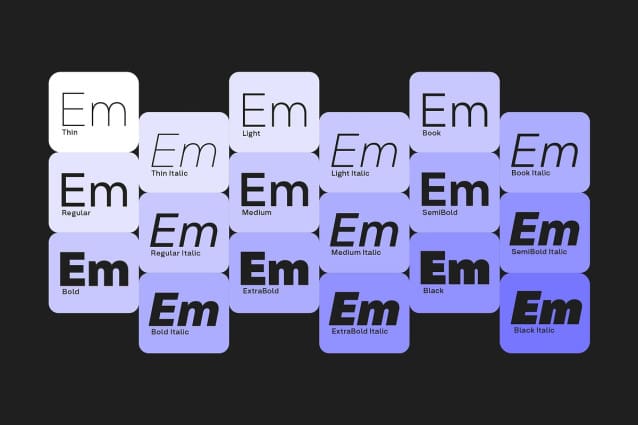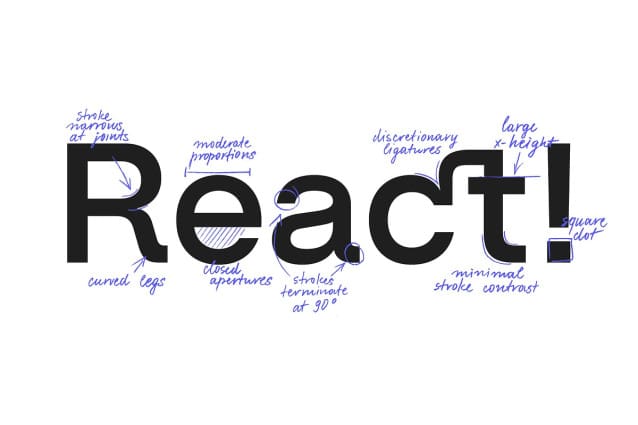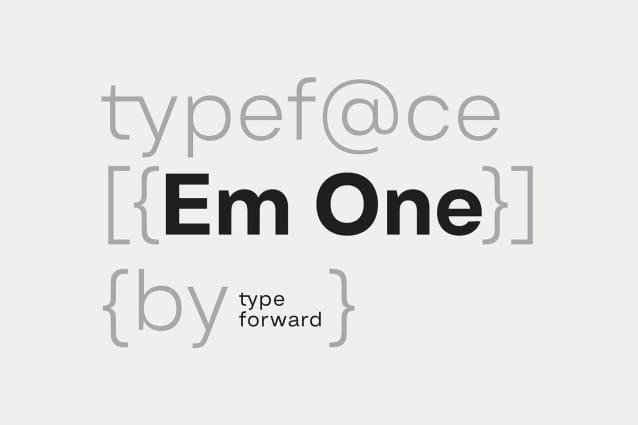
Em One Font
Em One Font is a compact, clean sans-serif typeface that balances simple aesthetics with a high x-height, minimal contrast, and moderate proportions. Designed as a cornerstone for any project, Em One serves both as functional body text and striking headlines with a subtle and timeless character.
Design Approach: Em One is the first typeface developed with our colleague Luboslav Boyanov, a National Academy of Art Sofia graduate. Our goal was to create a functional typeface with a broad range of applications—from web and print to branding, editorial, and various design contexts—embodying a classic Swiss typeface’s distinctive character and aesthetics while maintaining a straightforward design.
Distinct Features:
Key features include a tall x-height, minimal contrast between strokes, and moderate proportions for better readability. Refined letter spacing enhances the overall look, and distinctive elements in some letters add character without excessive visual noise, making EmOne versatile and balanced between functionality and graphic identity.
Font Family Composition:
Em One comes in 9 weights, from Thin to Black, each with a corresponding italic version. A variable font format offers greater flexibility for dynamic solutions.
Technical Specifications:
Designed for a large audience, Em One supports over 220 languages, including Extended Latin and Cyrillic. It offers many typographic features, such as ligatures, stylistic sets, contextual alternatives, and OpenType features.
Usage: Em One is multifunctional and adaptable, with various weights serving as standalone elements or complements in design systems. Thicker and thinner weights are ideal for headlines and display elements, while middleweights are optimized for text blocks. Optimized for screens, Em One performs well in any media, balancing glyphs and negative space for effective print use.
Summary: Em One is a functional and practical sans-serif typeface influenced by popular and enduring Swiss typefaces from the mid-20th century. Built as a multipurpose font, it excels in both display and functional contexts, remaining recognizable and characterful.